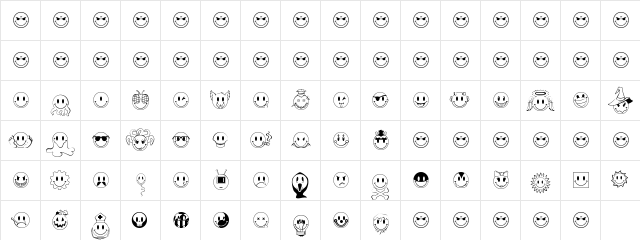
JLS Smiles Sampler Regular
Design Context for JLS Smiles Sampler Typeface
JLS Smiles Sampler is a composed and adaptable typeface that performs quietly and consistently across a wide range of design contexts.